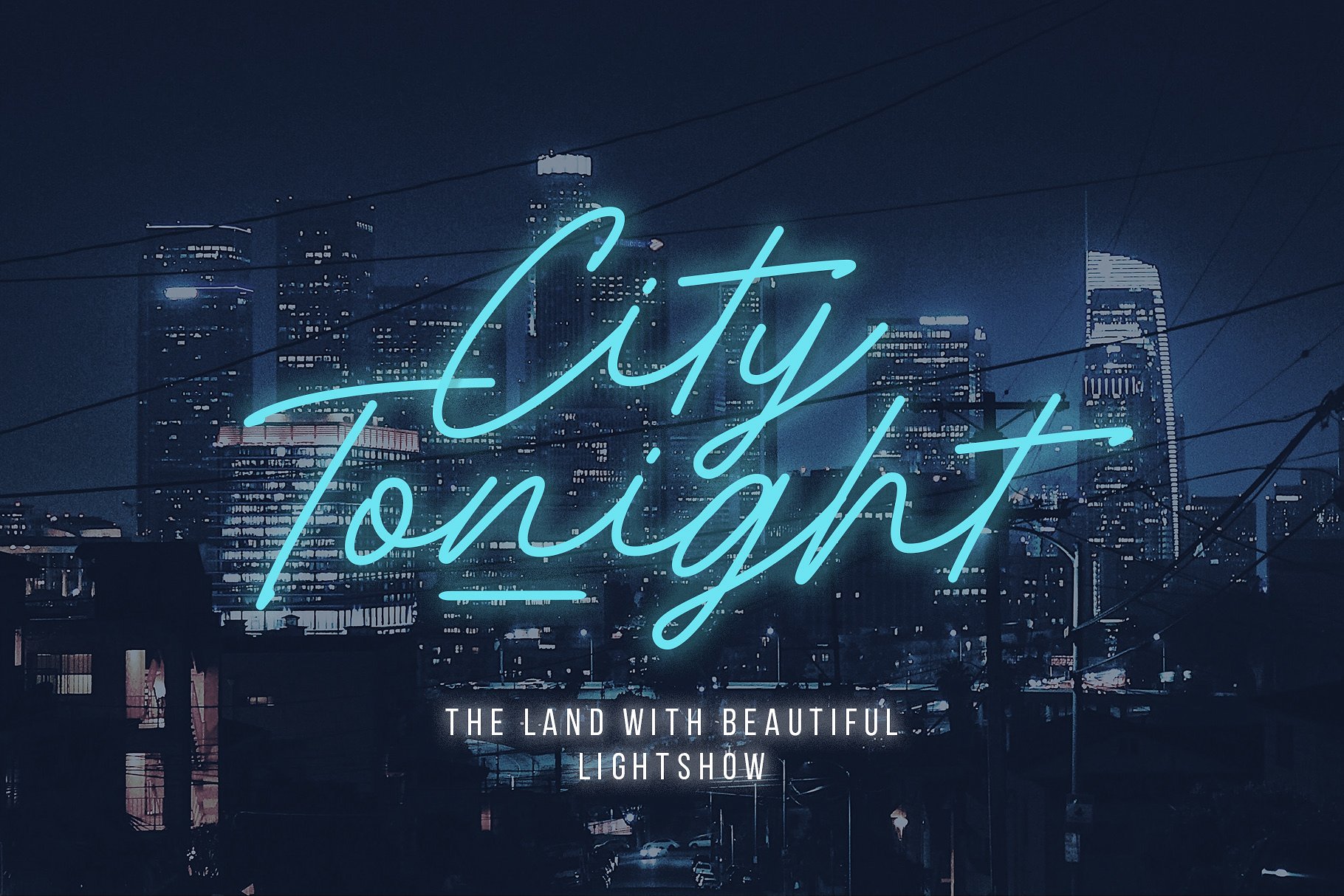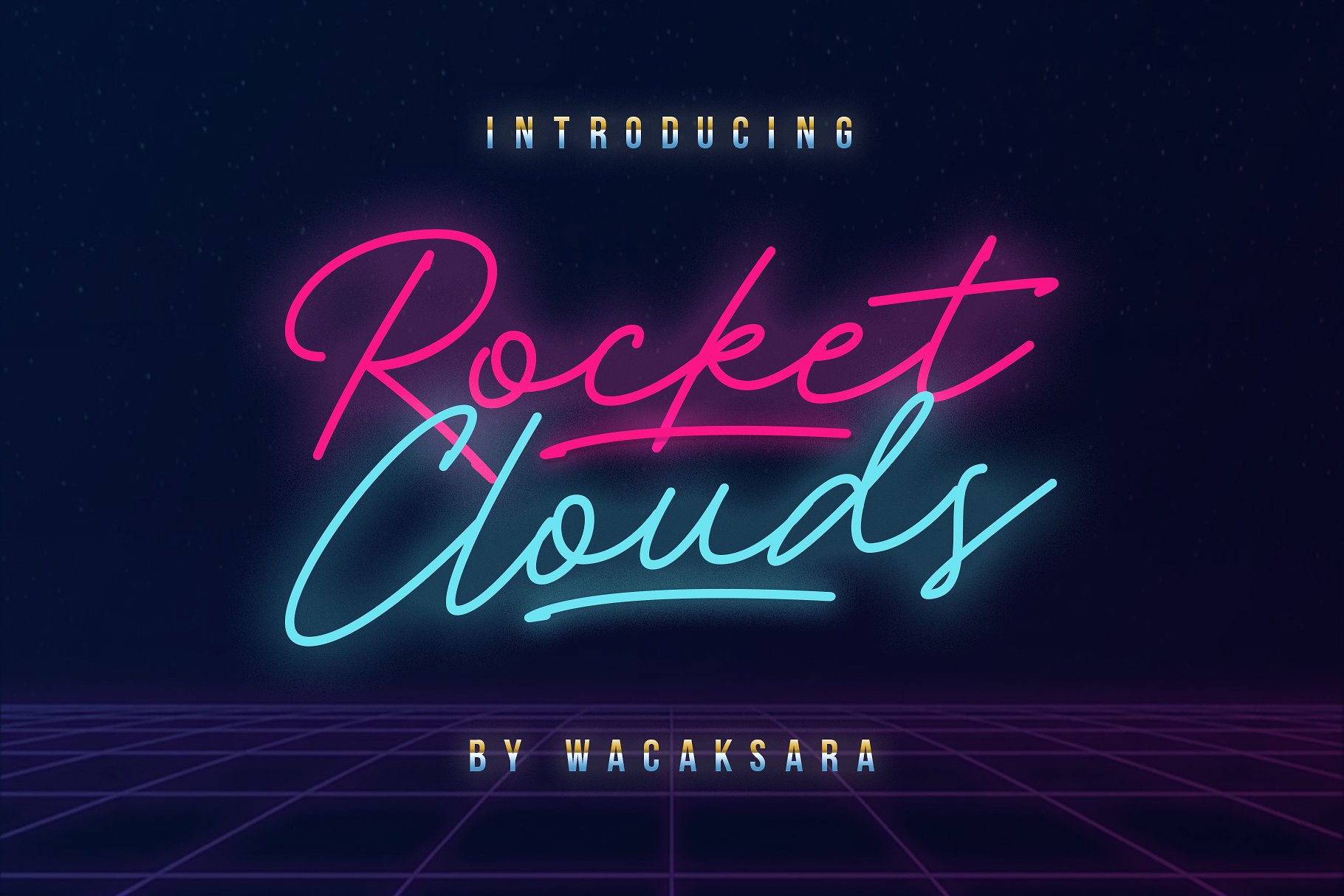
Rocket Clouds Handwriting
Rocket Clouds Handwriting Font
Introducing our new font called Rocket Clouds was inspired by 1980’s music and neon lights — a contemporary take on retro stylings, this two-font duo will bring your designs to life with an infusion of boisterous nostalgia.